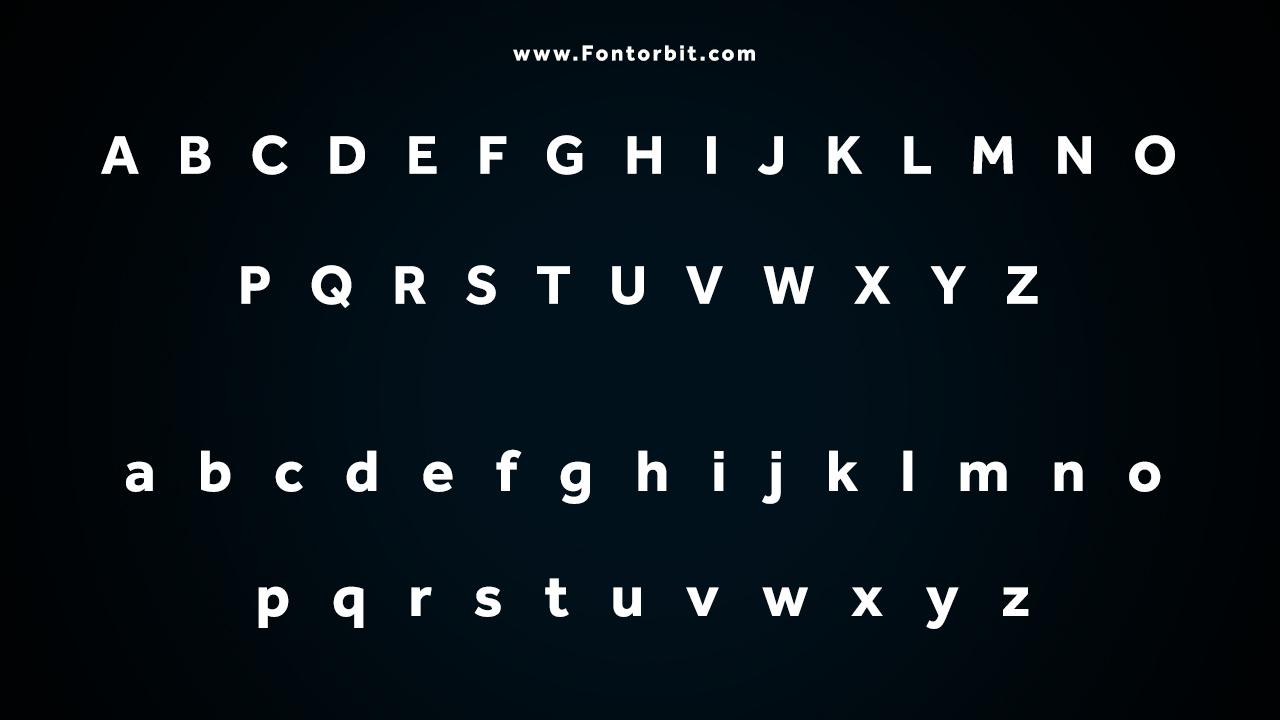
Effra is a versatile sans-serif font designed by Jonas Schudel and published by Dalton Maag in 2008. Known for its modern yet approachable style, Effra combines simplicity with elegance, making it a popular choice across various design applications. As part of the sans-serif family, Effra’s clean lines and legibility make it ideal for both digital and print media.
Effra offers a variety of styles within its family, making it suitable for different design needs. The font family features:
Effra Regular
This diversity allows for a range of typographic expressions, from simple body text to bold headlines.
Notable Uses Of Effra
Effra has been widely adopted for both corporate and creative use. Some notable instances where Effra has been used include:
branding for major corporations, product packaging, and website design. Modern professional designs. UI/UX design, presentations, and marketing campaigns.
Effra is a great choice for a wide range of applications. Its legibility makes it suitable for both large-scale displays, such as billboards or signage, as well as small-scale content like body text on websites or in print materials. The font’s flexibility also makes it ideal for:
- Corporate branding and identity design
- Print materials such as brochures, catalogues, and business cards
- Editorial and magazine layouts
- Presentations and pitch decks
Effra is a highly versatile font that offers both flexibility and style, making it a great choice for modern design. Whether you’re working on corporate branding, digital interfaces, or printed materials, Effra’s clean lines and multiple weights allow you to create a professional, polished look.
2.Is Effra Suitable For Body Text?
Yes, Effra’s clean and legible design makes it ideal for body text in both print and digital formats.
3.Where Is Effra Most Commonly Used?
Effra is popular in branding, web design, editorial layouts, and corporate materials.